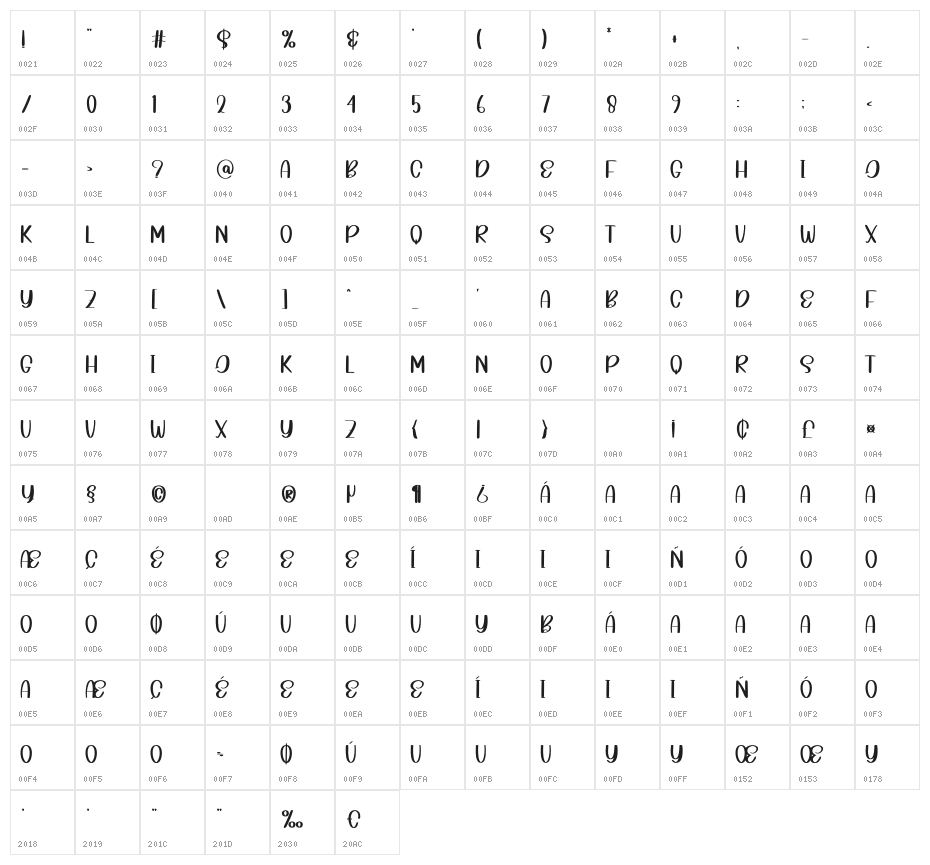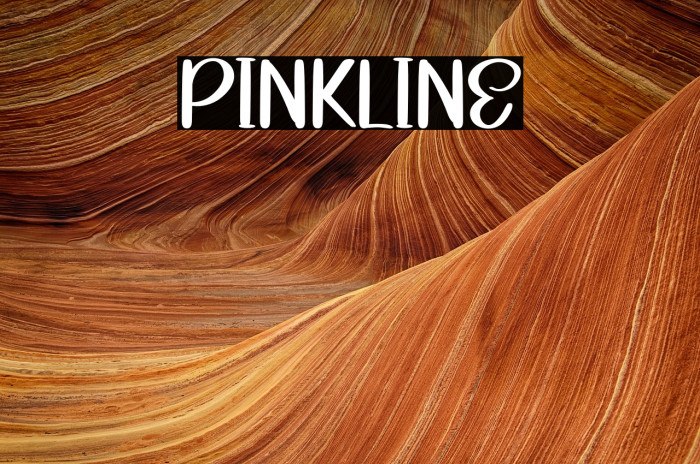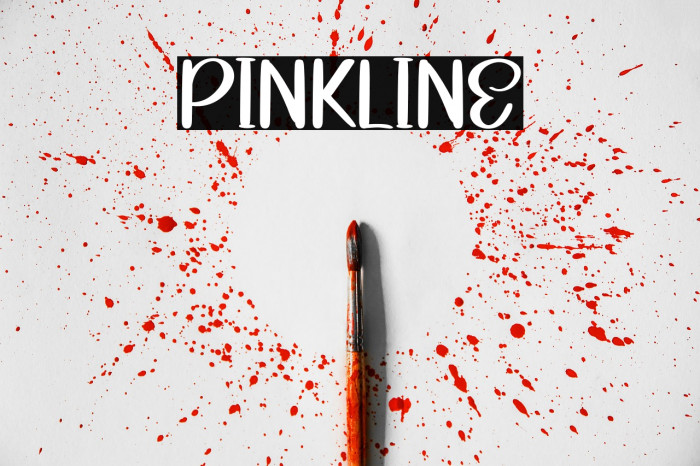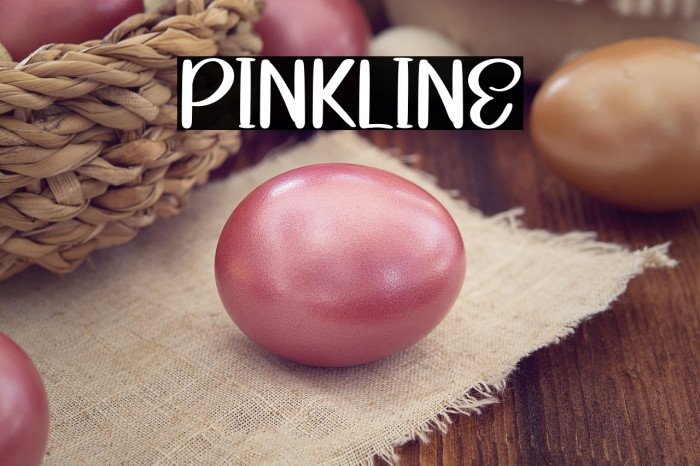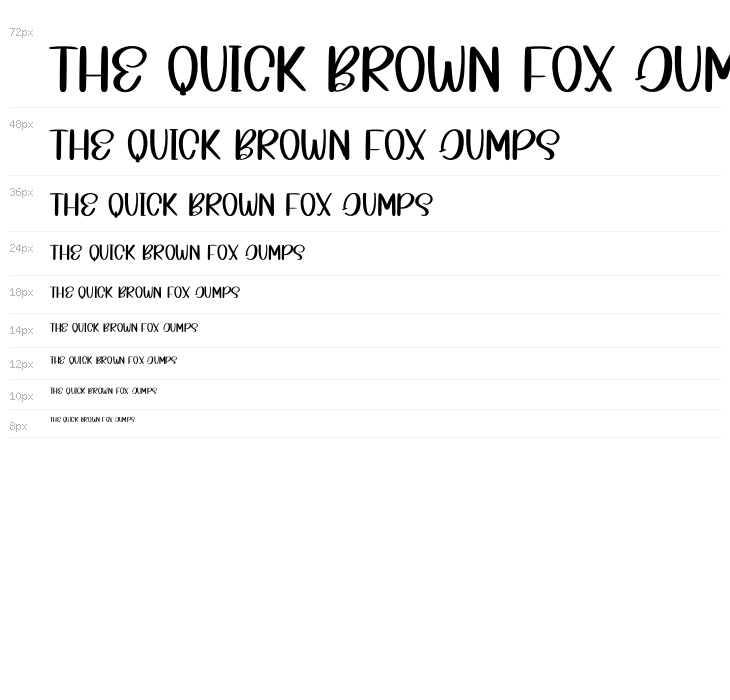
Pinkline Font
Pinkline Description
This font features a playful and energetic script style, characterized by its bold and flowing letterforms. The strokes are thick and consistent, giving it a strong presence on the page. Each character has a unique flair, with some letters incorporating subtle curves and loops that add to its whimsical nature. The font maintains a uniform weight throughout, ensuring readability while still offering a decorative touch. Its lively appearance makes it suitable for creative and informal applications.
| Use Case | Logos, Headlines, Invitations |
| Proposed Projects | Ideal for greeting cards, invitations, branding for playful products, and social media graphics. |